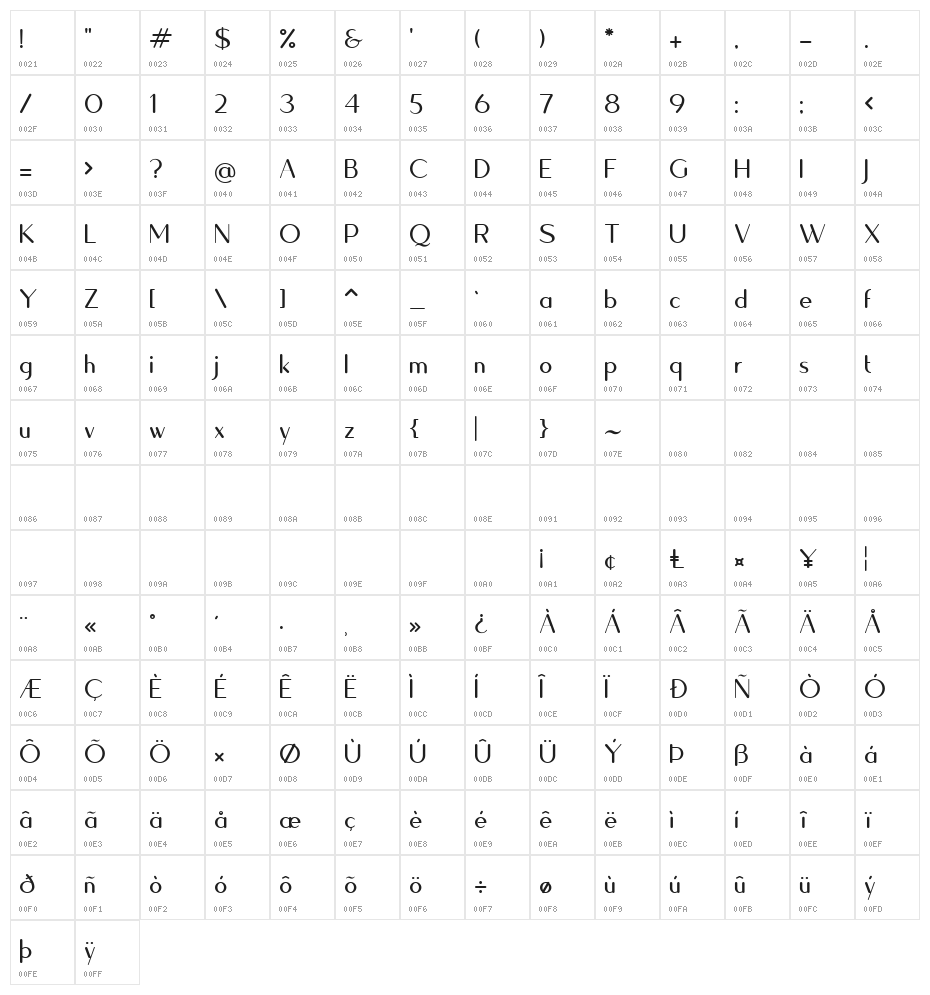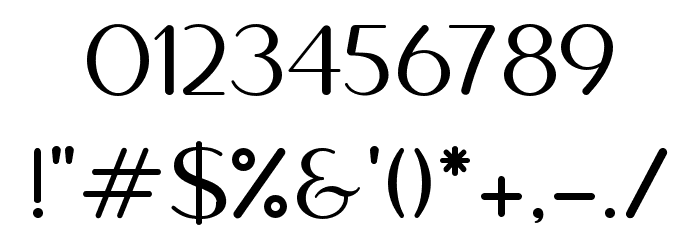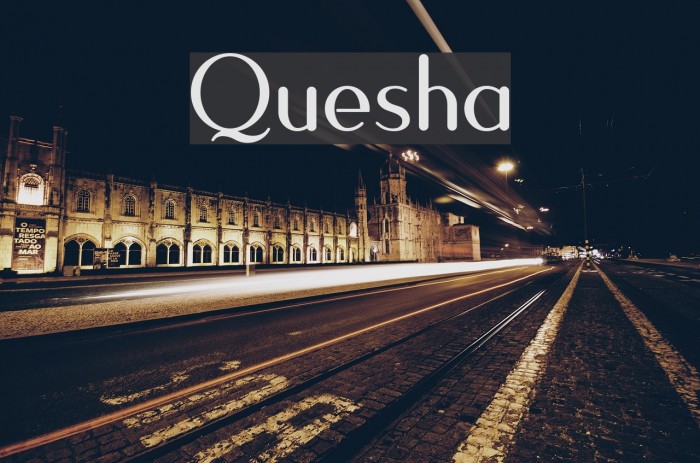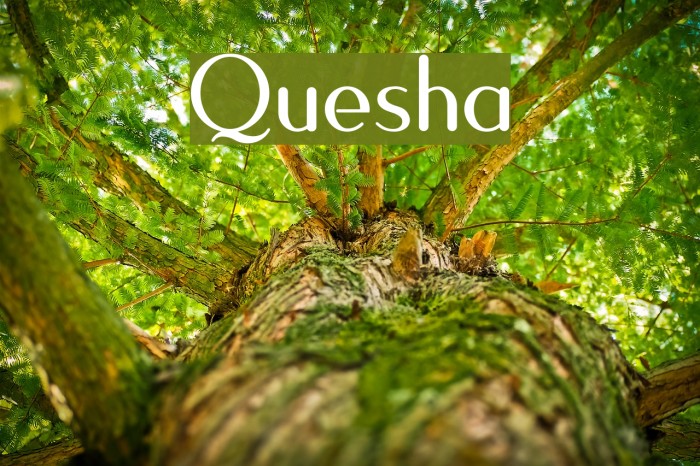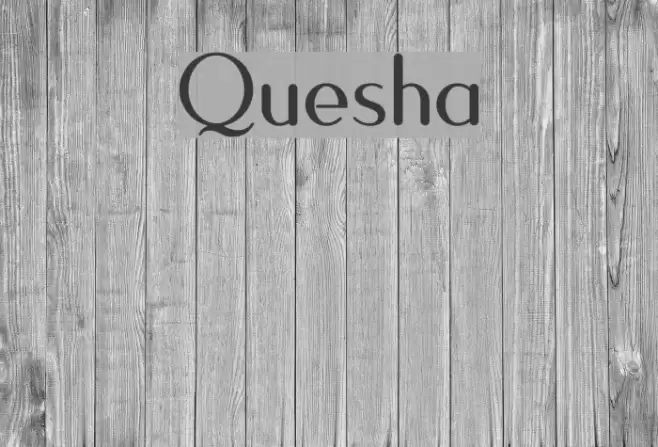
Quesha Font
Quesha Description
This font features a clean and modern sans-serif design with smooth curves and a slightly condensed structure. The uppercase letters are tall and elegant, while the lowercase letters maintain a consistent height, providing a harmonious balance. The numerals are clear and legible, making them suitable for various applications. Special characters are designed with a minimalist approach, ensuring they blend seamlessly with the overall style. The font's simplicity and elegance make it versatile for both digital and print media.
| Proposed Projects | Ideal for branding, editorial design, web design, and advertising materials. |